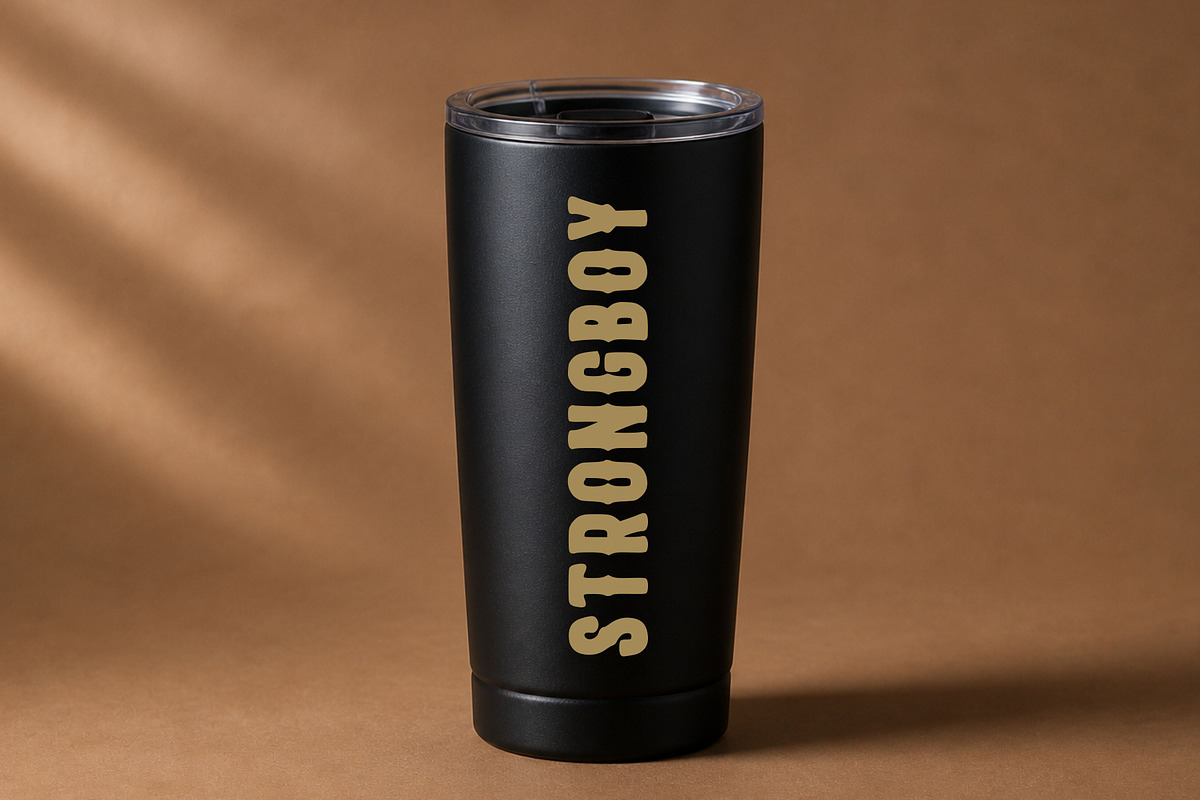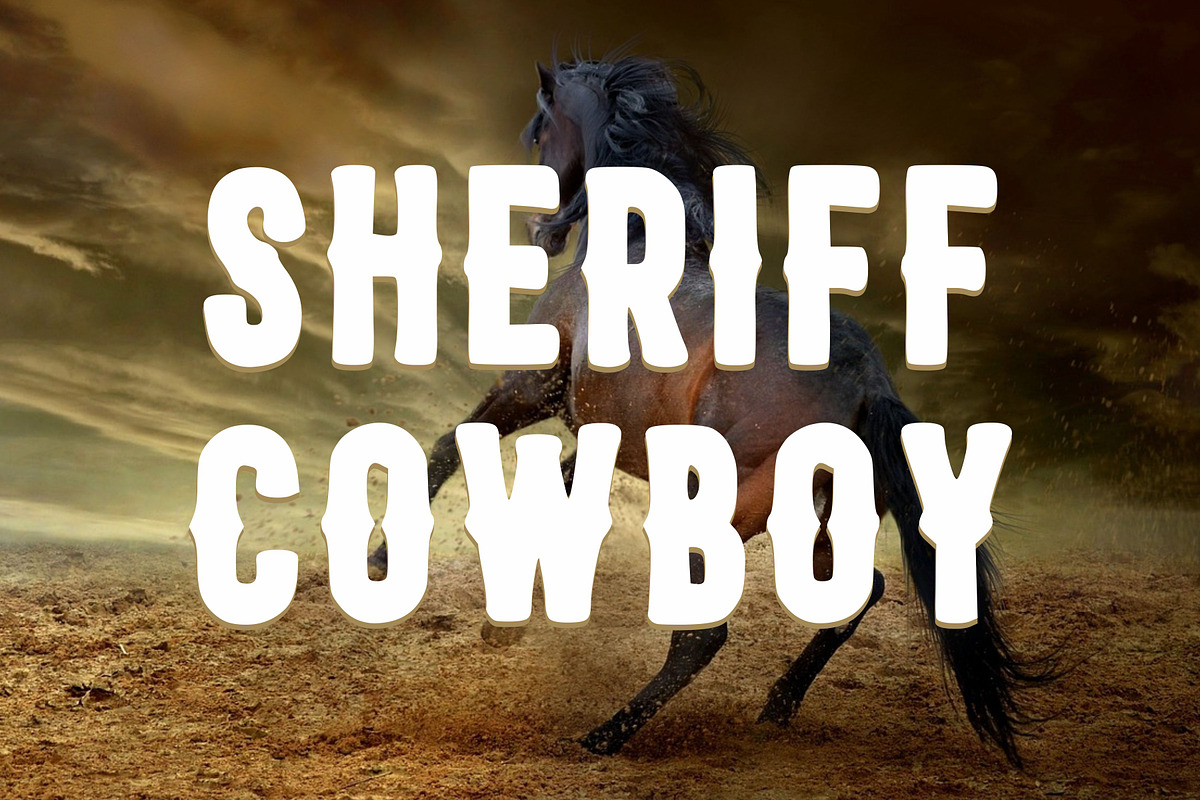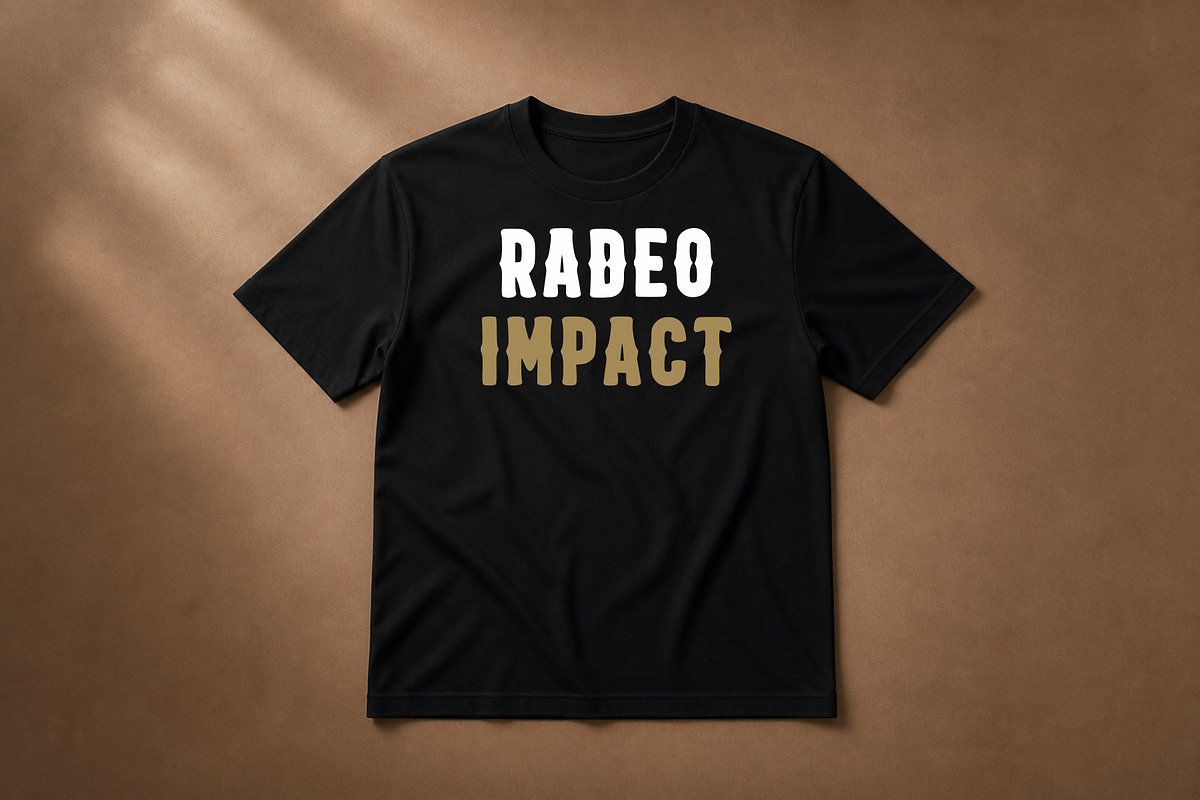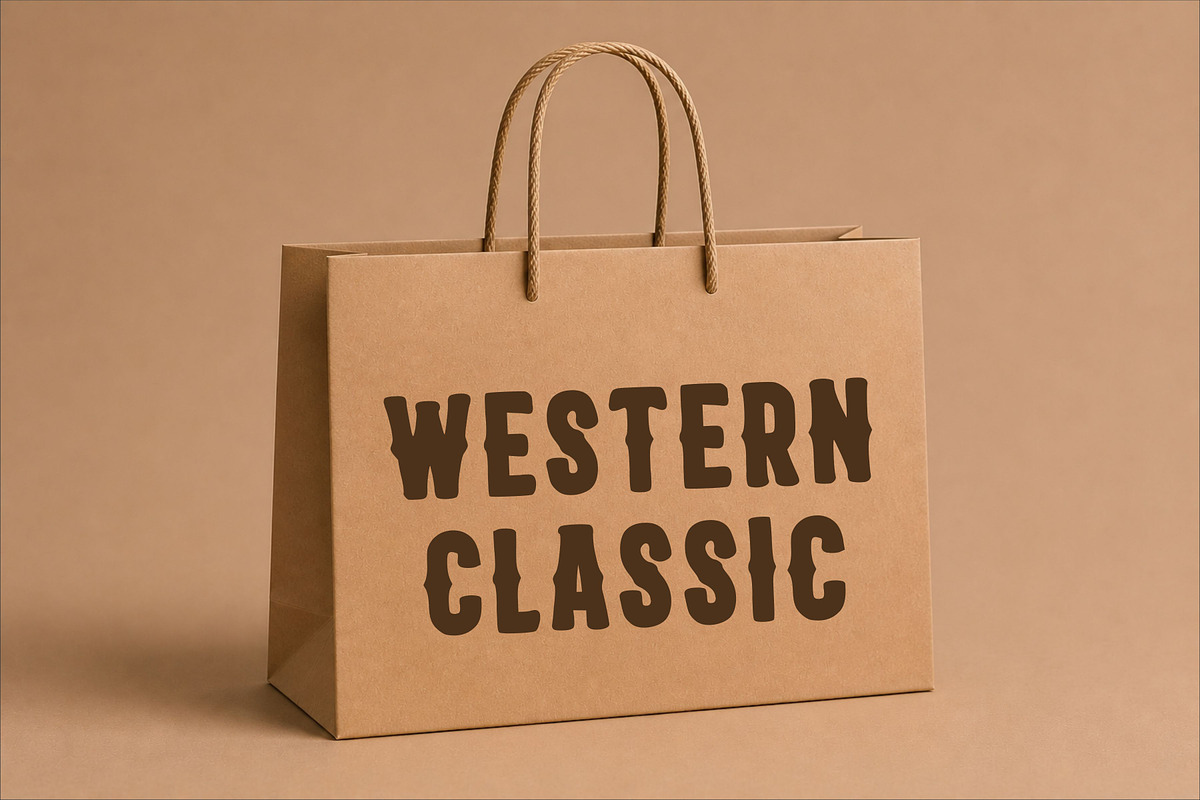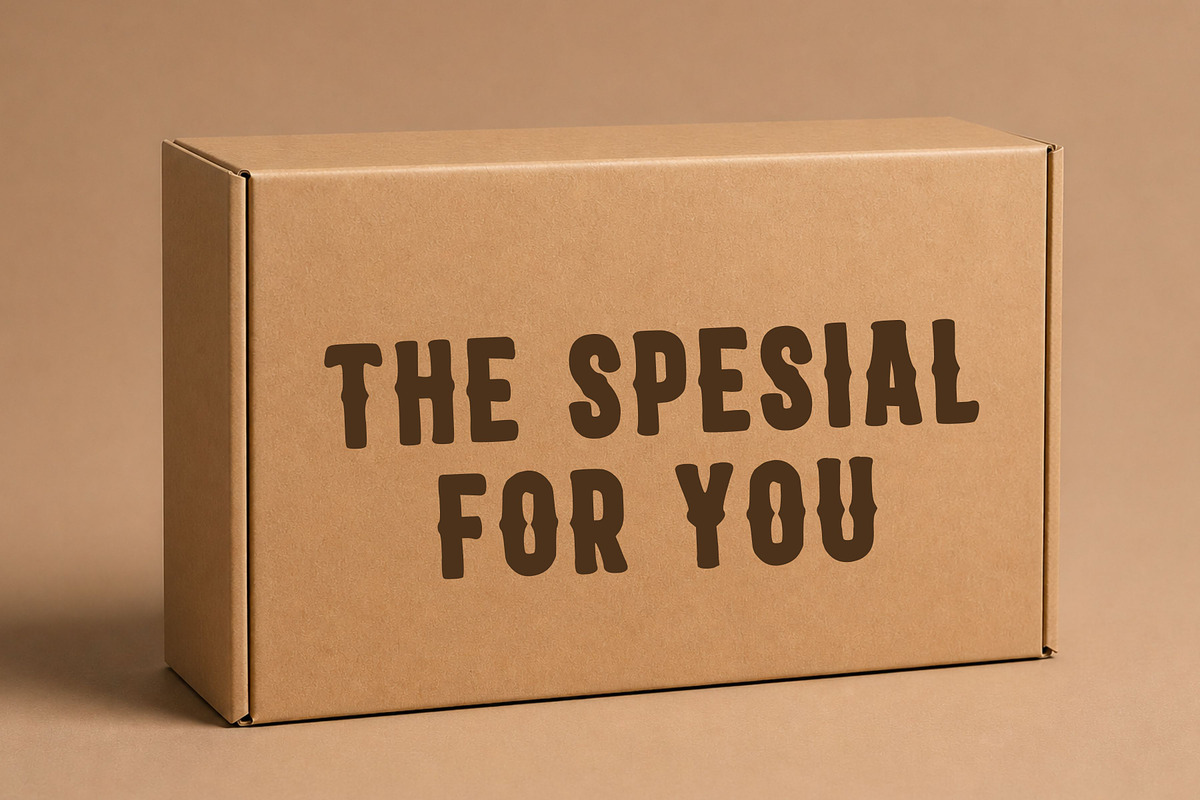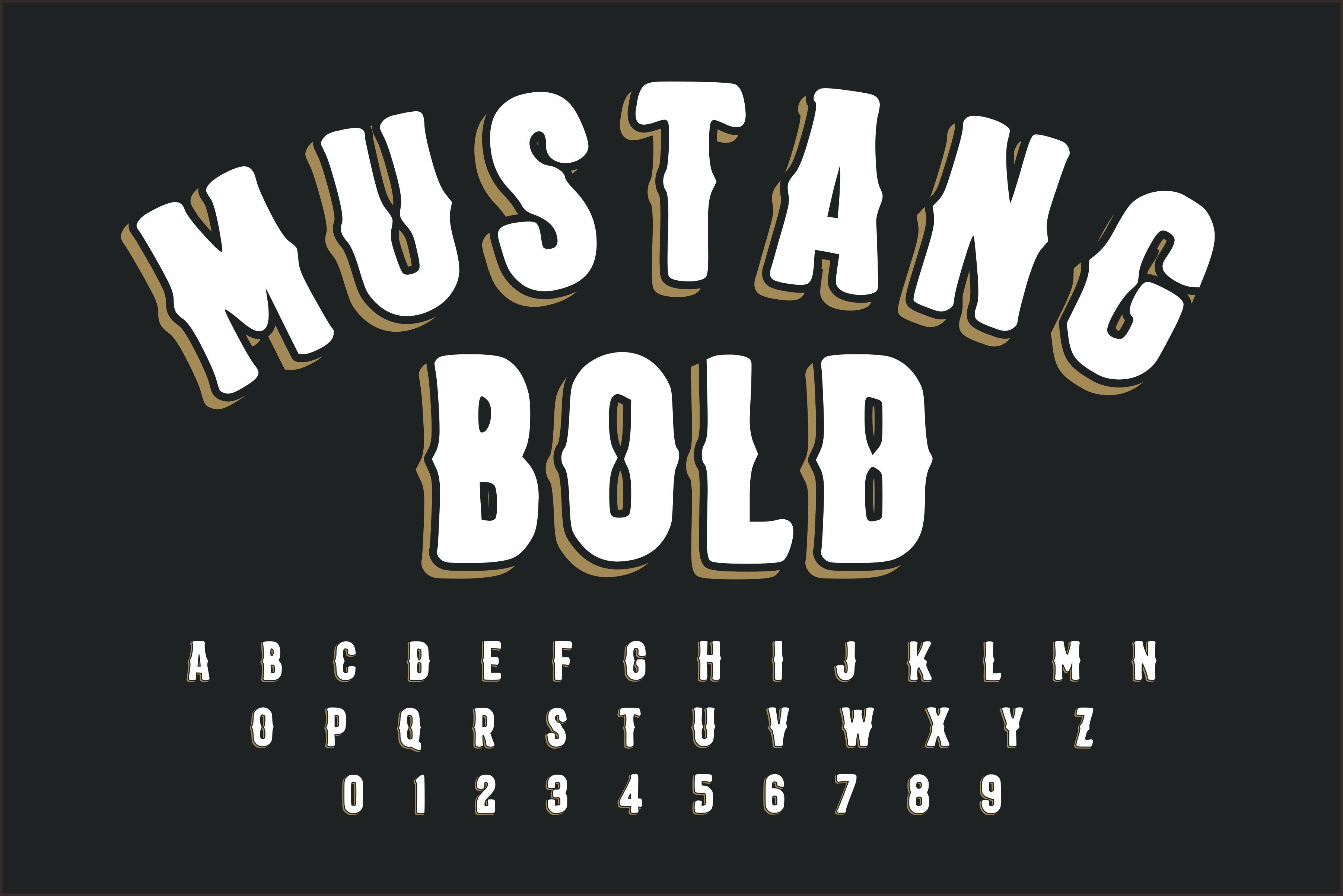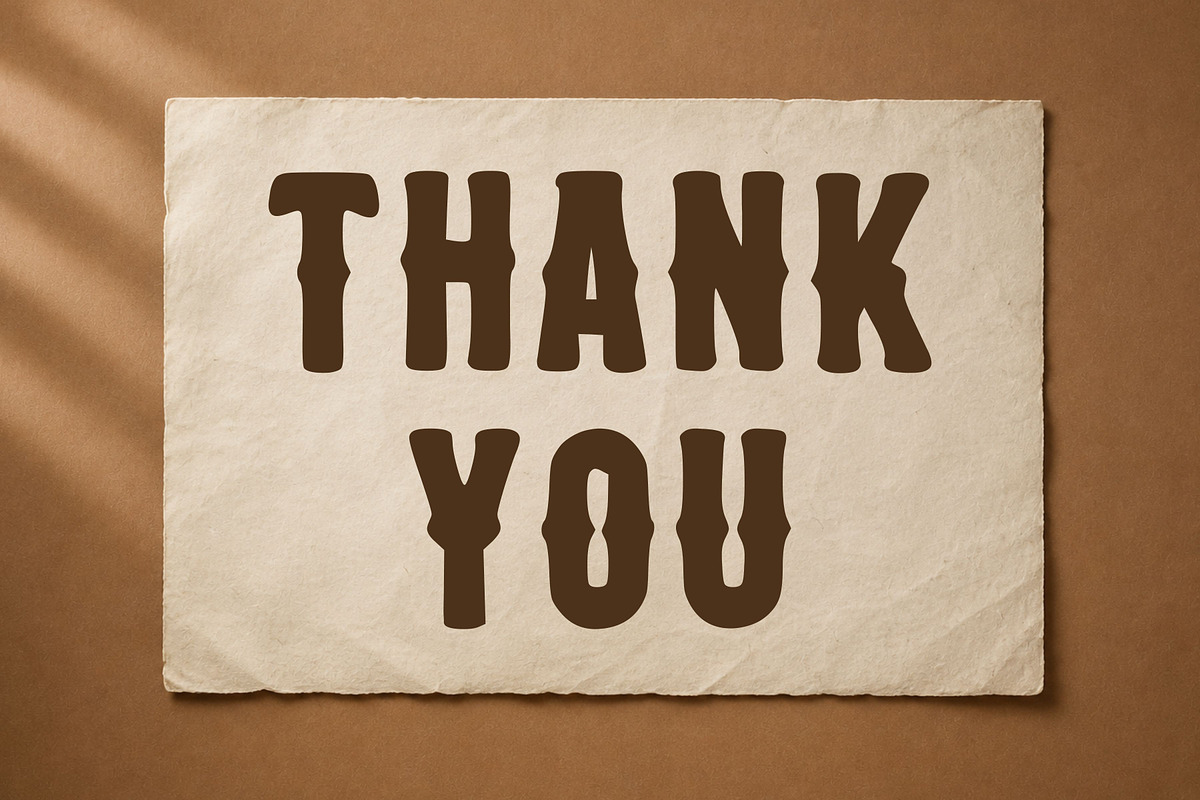
Mustang Bold Vintage Western Font
Mustang Bold is a strong and stylish vintage display font inspired by classic western typography. With its chunky slab serif shapes, bold curves, and retro shadow effect, this font is perfect for creating eye-catching designs with a nostalgic feel.
Ideal for posters, logos, branding, packaging, t-shirts, signage, and vintage-themed projects, Mustang Bold brings a rugged yet playful western charm to your work. Its unique character makes it stand out while remaining highly readable.
Add a touch of cowboy spirit and retro flair to your designs with Mustang Bold!
Bold vintage slab serif style
Retro western-inspired design
Strong and eye-catching characters
Uppercase letters, numbers, and punctuation
Perfect for display and headline use